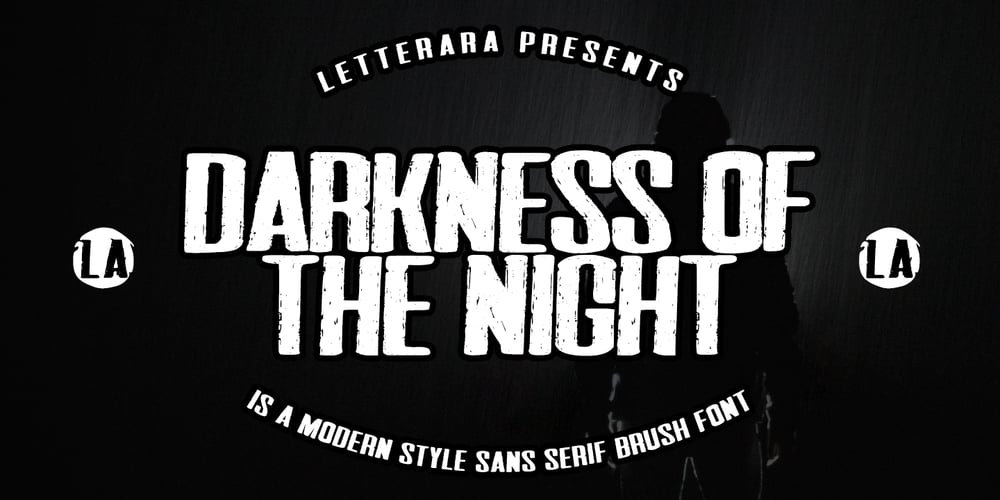
Darkness of the Night Font Family was designed by Thomas Aradea and published by Letterara. Darkness of the Night contains 2 styles and family package options. Darkness of the Night is a modern style sans serif brush font. What’s included: 1. Darkness of the night TTF 2. Style in this font include: Regular & Italic 3. Works both on Mac & PC 4. Simple installations 5. Accessible in the Adobe Illustrator, Adobe Photoshop, Adobe InDesign, CorelDraw, even work on Microsoft Word. 6. Support multilingual; ä ö ü Ä Ö Ü ß ¿ ¡ To access the alternate glyphs, you need a program that supports OpenType features such as Adobe Illustrator CS, Adobe Photoshop CC, Adobe Indesign and CorelDraw. More information about how to access alternate glyphs, check out this link